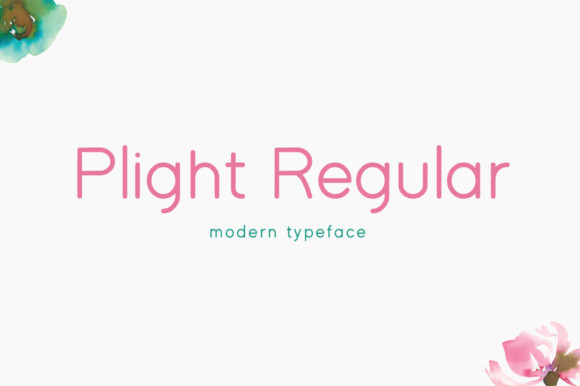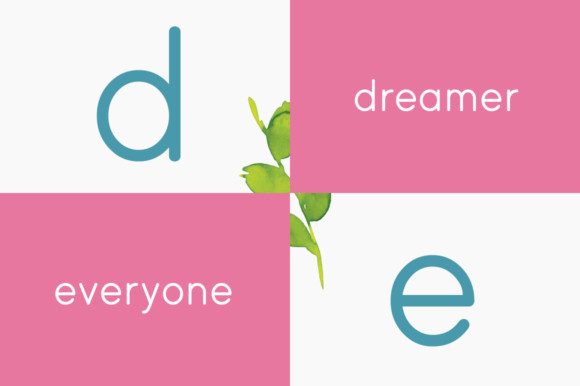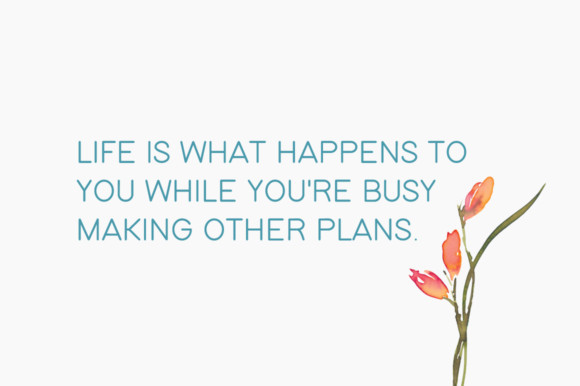
Plight Regular Font
Plight Regular is a magical display font carefully created with a touch of elegance. This enchanting font will turn any creative idea into a true standout.